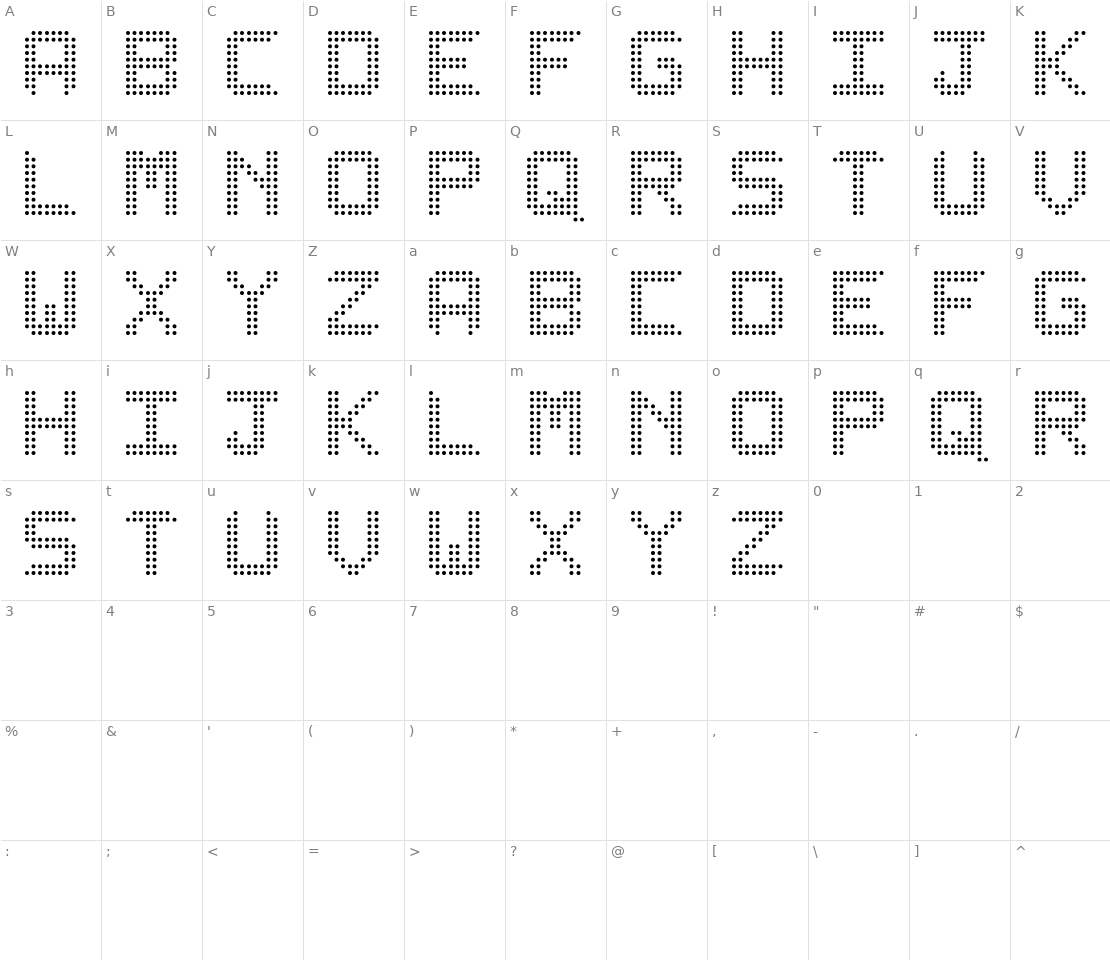
Lediz ST
by Southype · Website
Lediz ST is a dot-matrix display face from Southype that recreates the look of LED signage, each letter built from a grid of circular dots. The uppercase-only character set and rigid spacing nail that electronic readout feel, landing somewhere between airport departure boards and vintage scoreboard displays. Best at headline sizes for retro-tech branding, event graphics, or anything that needs to glow like old hardware.